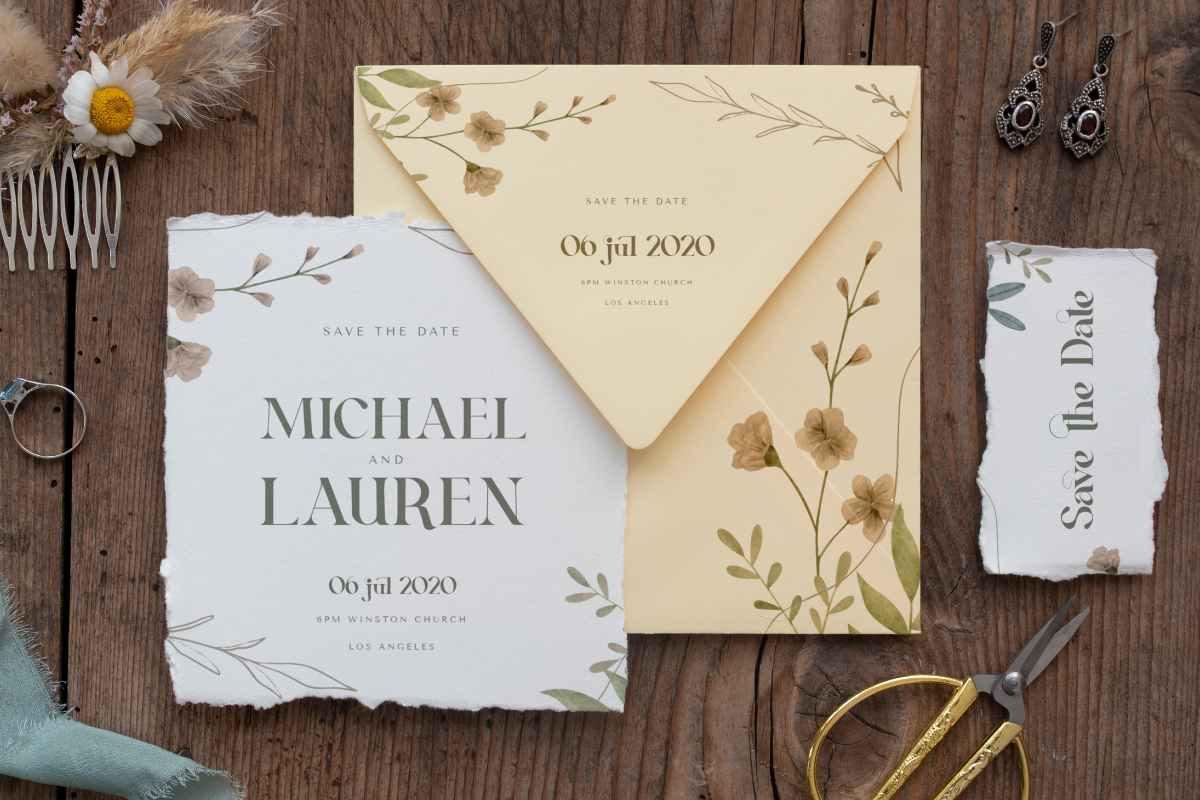
Romantic Quick Serif Font
This is a unique and elegant serif font that has a nostalgic feel and brings out a great vintage aesthetic. This typeface inspired by a minimalist touch that actually modern look and perfect for a luxurious themed brand, apparel, cosmetic, food industry, interior decoration, label, logotype, packaging, resort, signage, title, travel, typeface, wedding invitation, website header, writer, and more!